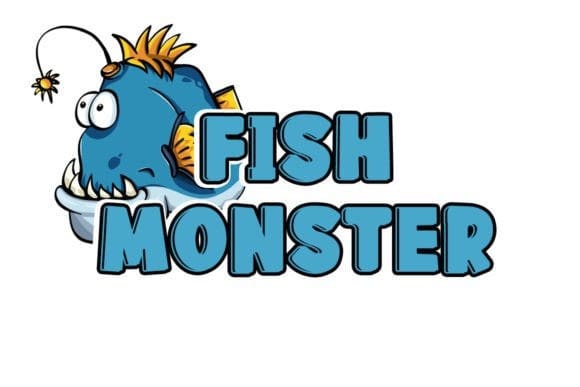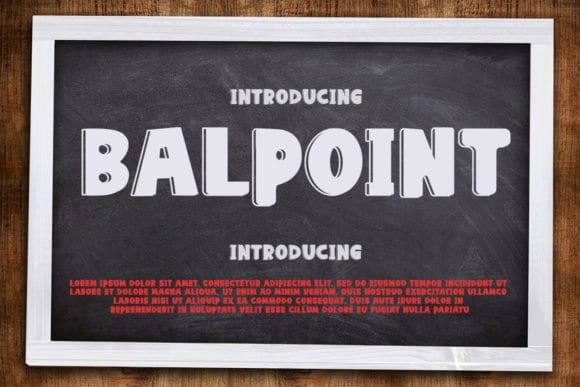
Balpoint Display Font
Balpoint Display Font is a quirky and sweet font. This font will look amazing in a great number of projects, both formal and informal. It will add an incredibly joyful touch to your designs.